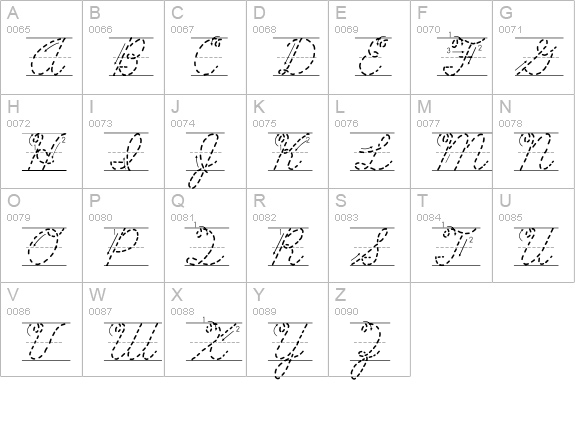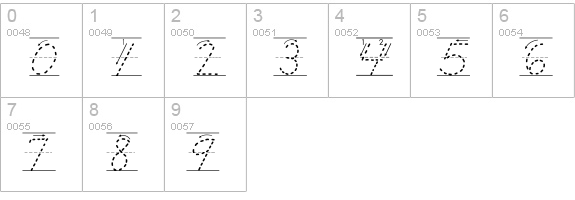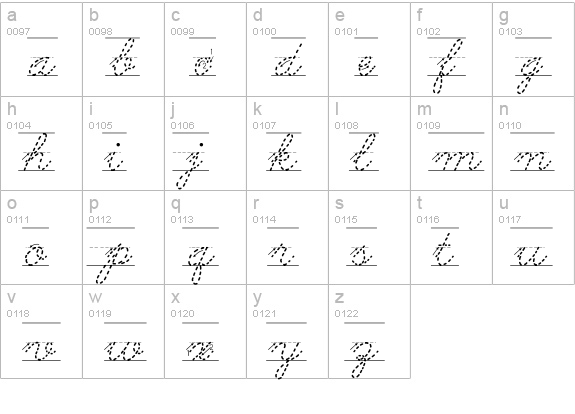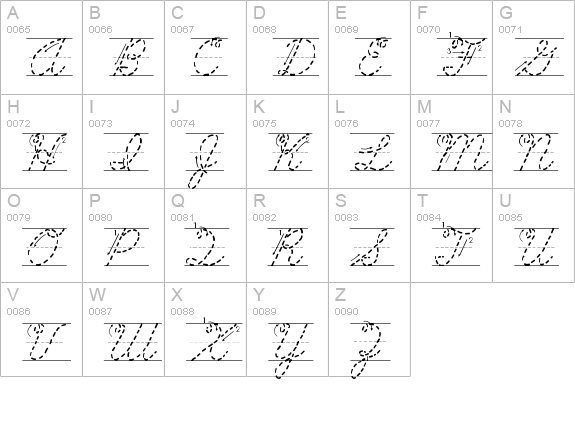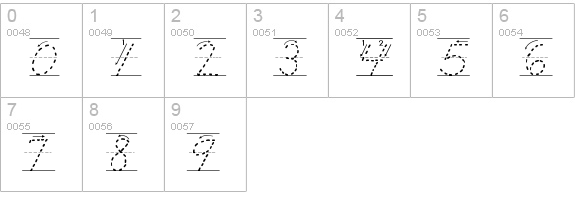
AbcCursiveArrowDotted Font Details
AbcCursiveArrowDotted font is a charming and whimsical cursive font that adds a touch of fun and creativity to any project. With its unique arrow and dotted letterforms, this font is perfect for adding a playful and dynamic element to designs such as invitations, posters, and children's books. The flowing curves and dotted accents give AbcCursiveArrowDotted a modern and stylish look that is sure to stand out. Best of all, AbcCursiveArrowDotted font is completely free to download at FontsMarket.com. Whether you're a designer looking to add a unique touch to your work or simply someone who appreciates a fun and eye-catching font, AbcCursiveArrowDotted is the perfect choice. Download it today and start adding a touch of whimsy to your projects!